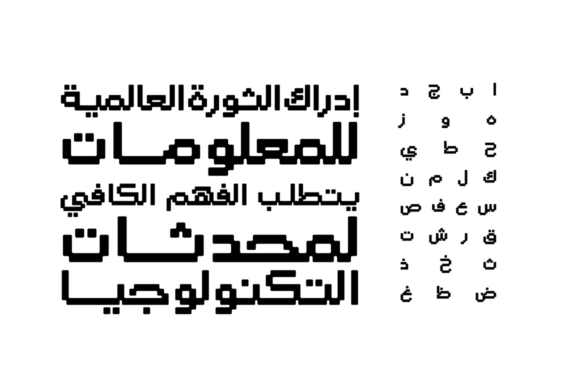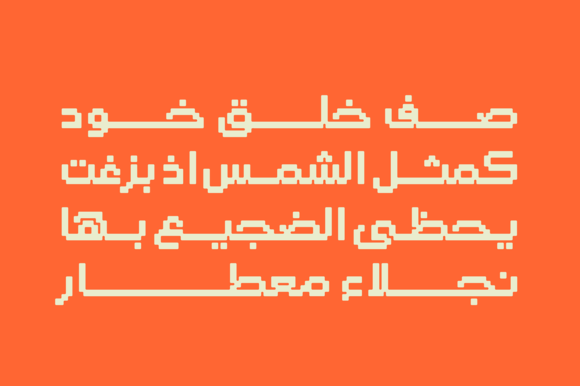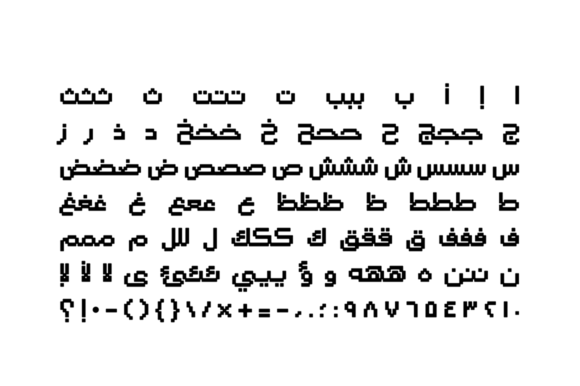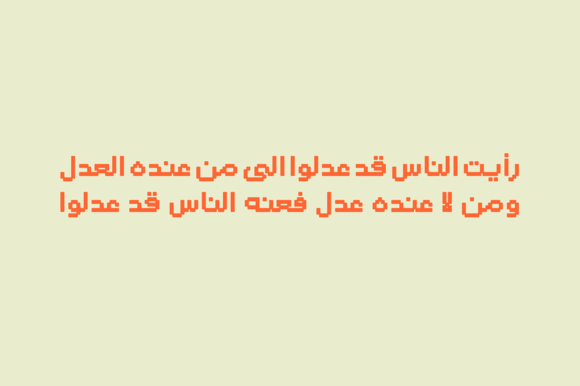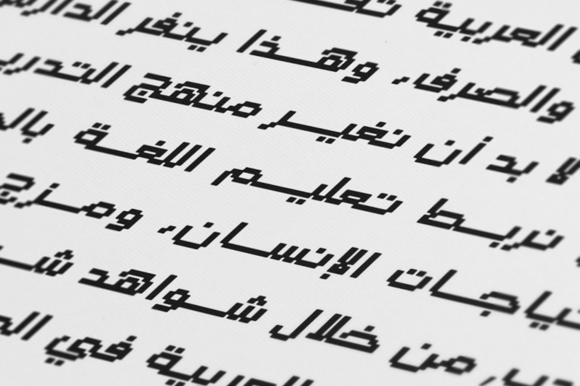
Introduction to Raqami Font
As a designer, have you ever stared at a blank screen, waiting for that perfect spark to ignite your next creative project? For many, it’s the thrill of discovering a new design resource that sets the wheels in motion. For Arabic language designers, one such gem is the Raqami Font – a high-quality, pixelated font that’s perfect for modern projects.
The word Raqami itself means ‘Digital’ in Arabic, which is fitting given its sleek, digital aesthetic. With a transparent background and clean lines, this font is ideal for print advertising, web design, and any other creative project that requires a touch of modernity. Whether you’re a seasoned pro or just starting out, the Raqami Font is a valuable addition to any designer’s toolkit.
Key Features of Raqami Font
- High-quality design resource perfect for creative projects
- Unique, hand-drawn design with a transparent background
- Designed to be versatile and suitable for a variety of design applications
Honest Review: Raqami Font
As a designer, I’m always on the lookout for high-quality design resources to elevate my creative projects. Recently, I had the chance to try out the Raqami Font, and I’m excited to share my honest review.
What works well: ✨ I was impressed by the unique and elegant design of the Raqami Font. The transparent background allows for seamless integration with any design, making it a great addition to any project. The font is also highly customizable, which is perfect for designers who like to experiment with different styles.
Overall, I’m impressed with the Raqami Font and would recommend it to designers who are looking for a unique and elegant design resource. While there are some limitations, the font’s high quality and customization options make it a great addition to any creative project.
Raqami Font
Raqami Font is a high-quality design resource that offers a unique and creative way to enhance your projects. This font features a transparent background, making it easy to customize and blend with any design.
Tips for Getting the Most Out of Raqami Font
Here are a few tips for getting the most out of Raqami Font:
- Experiment with different font sizes and styles to achieve the desired look.
- Combine Raqami Font with other design elements to create a unique and creative project.
Common Use Cases for Raqami Font
Raqami Font is perfect for:
- Designing invitations and event materials.
- Creating
Alternatives to Raqami Font
Great Vibes Font is a high-quality, elegant script font that’s perfect for creative projects requiring a touch of sophistication. Its transparent background makes it easy to overlay on images and backgrounds. Great Vibes is a great alternative to Raqami Font for designers looking for a more refined look.
Alex Brush Font is a beautiful, handwritten font ideal for design projects that need a personal touch. Its flowing lines and organic feel make it a great choice for creative projects. Alex Brush is a better option than Raqami Font for designers who want a more expressive and artistic font.
Carolyna Pro Font is a modern, high-quality font that’s perfect for designers who want a clean and sophisticated look. Its transparent background and elegant design make it a great alternative to Raqami Font for projects that require a touch of luxury.